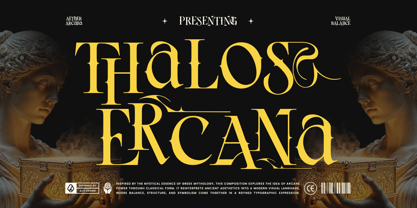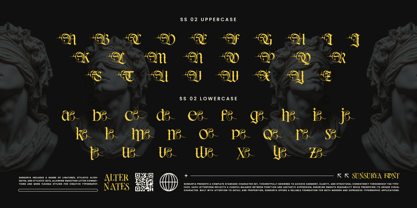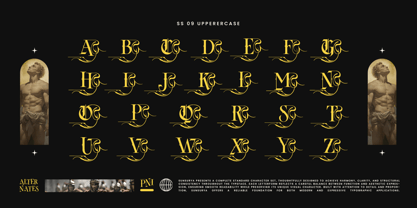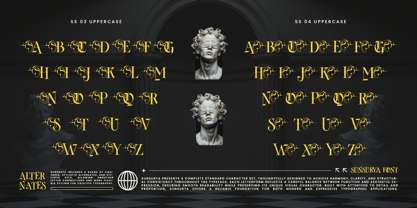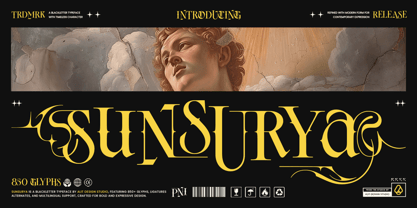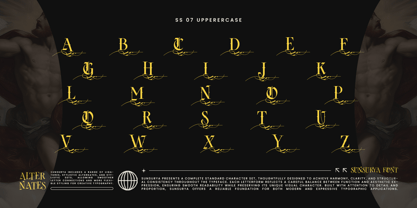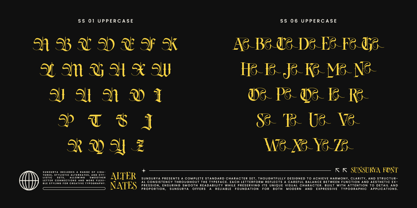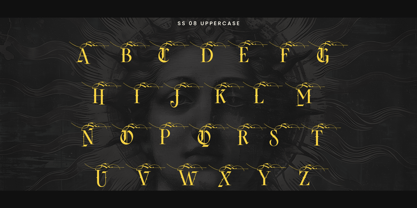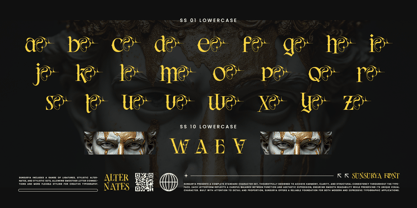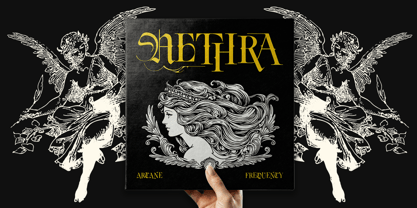
Sunsurya
Sunsurya – A Timeless Blackletter Typeface
Introducing Sunsurya, a masterful blackletter typeface crafted by Alit Design Studio. Designed to strike a perfect balance between historical elegance and contemporary expression, Sunsurya brings a bold, dramatic, and highly ornamental presence to your typographic projects.
Inspired by classical artistry and refined with modern structural consistency, this font offers a complete standard character set that guarantees harmony and clarity. Whether you are aiming for a vintage, gothic, or cinematic aesthetic, Sunsurya provides a reliable foundation for expressive typography without sacrificing readability.
What truly sets Sunsurya apart is its massive library of 850+ glyphs. It comes loaded with an extensive array of Stylistic Sets (SS01 through SS10) featuring breathtaking swashes, intricate standard ligatures, and stylistic alternates. This gives designers ultimate flexibility to create custom lettering that looks entirely bespoke.
Perfect for premium branding, beverage packaging, tattoo studio identities, apparel design, album artwork, editorial headlines, and statement logos.
Key Features:
• 850+ Glyphs for extensive typographic freedom.
• Uppercase & Lowercase characters.
• Numerals, Punctuation & Essential Symbols.
• Extensive Stylistic Alternates (SS01 - SS10) featuring dynamic and elegant swashes.
• Standard Ligatures for seamless letter connections.
• Multilingual Support for global usability.